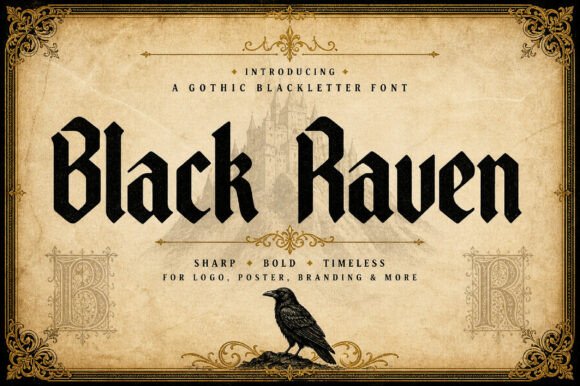
Unleashing the Dark Elegance of Black Raven Font
I’ll never forget the design project that led me to discover the captivating world of Black Raven Font. I was working late one evening, trying to meet a tight deadline for a client’s Gothic-inspired logo. The brief was simple: create a design that exuded mystery, drama, and a touch of the ethereal. Sounds easy, right? But as I scrolled through font after font, nothing seemed to capture the essence I was looking for – until I stumbled upon Black Raven.
This gothic blackletter display font instantly transported me to an era of Gothic architecture and Old English typography. Its name alone speaks volumes: intensity, drama, and mystery. With its sharp angles, potent vertical strokes, and audacious structure, Black Raven is truly a show-stopper in the world of typography.
First Impressions: What I Love About Black Raven
Here’s what makes Black Raven a standout in my book:
- ✨ Dark and Dramatic Flair: Black Raven adds an undeniable touch of drama to any design. Its bold, Gothic-inspired letters demand attention and create a lasting impression.
- ✅ Ethereal and Mysterious: The font’s unique blend of dark and ethereal elements makes it perfect for designs that require a sense of mystery or otherworldliness.
- 💡 Versatility: Whether you’re working on logos, posters, album covers, tattoos, apparel, packaging, or editorial headlines, Black Raven brings a level of sophistication and intensity that’s hard to match.
No font is perfect, and Black Raven has a few quirks to keep in mind:
- 🤔 Legibility at Small Sizes: Like many blackletter fonts, Black Raven can be challenging to read at smaller sizes. It’s best used for headlines or larger text.
- ⚠️ Overuse of Ornaments: While the font comes with beautiful ornaments and glyphs, using too many can make your design look cluttered. Balance is key.
The Inspiration Behind Black Raven
While the actual origins of Black Raven might be shrouded in mystery, it’s easy to imagine a story behind its creation. Perhaps it was born out of a late-night design session, fueled by a passion for Gothic architecture and a desire to bottle the essence of the mysterious and unknown. Or maybe it was inspired by ancient texts and manuscripts, reimagined for the modern designer. Whatever its origins, Black Raven is undoubtedly a masterpiece that channels the dark, ethereal vibes of a bygone era.
| What makes Black Raven unique? | Black Raven’s sharp angles, potent vertical strokes, and audacious structure set it apart, offering a dark, dramatic flair that’s hard to find in other fonts. |
Black Raven Font is more than just a typeface – it’s an experience. It invites you to step into a world of mystery, drama, and elegance, making it the perfect choice for designers looking to leave a lasting impression. Whether you’re crafting a logo, designing an album cover, or creating apparel, Black Raven is sure to add a touch of dark magic to your designs.